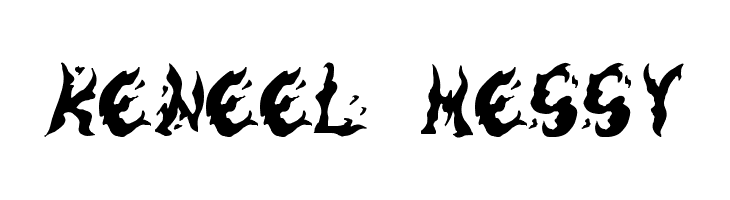
A pixelated, digital-style font with a retro, blocky aesthetic.
A playful, bold font with rounded, chunky letters ideal for fun and whimsical designs.
A classic serif font with elegant, sharp serifs and a sophisticated appearance.
A futuristic, geometric font with sharp angles and a digital aesthetic.
A modern, geometric font with clean lines and a condensed style.
A bold, geometric font with a vintage yet modern appeal, ideal for impactful headlines.
A bold, vintage-style font with rounded and angular elements, perfect for impactful designs.
A bold, playful font with rounded, bubbly characters ideal for fun designs.
A bold, distressed font with a grunge aesthetic, perfect for edgy designs.
设计师偏爱 JD Persegi Regular, Pumpkin Games, Aerodynamic Bold Oblique, KhushaNuma Regular and Vaporbyte Slim,因为其造型干净、适用范围广—— 从品牌识别到落地页、海报都能胜任。